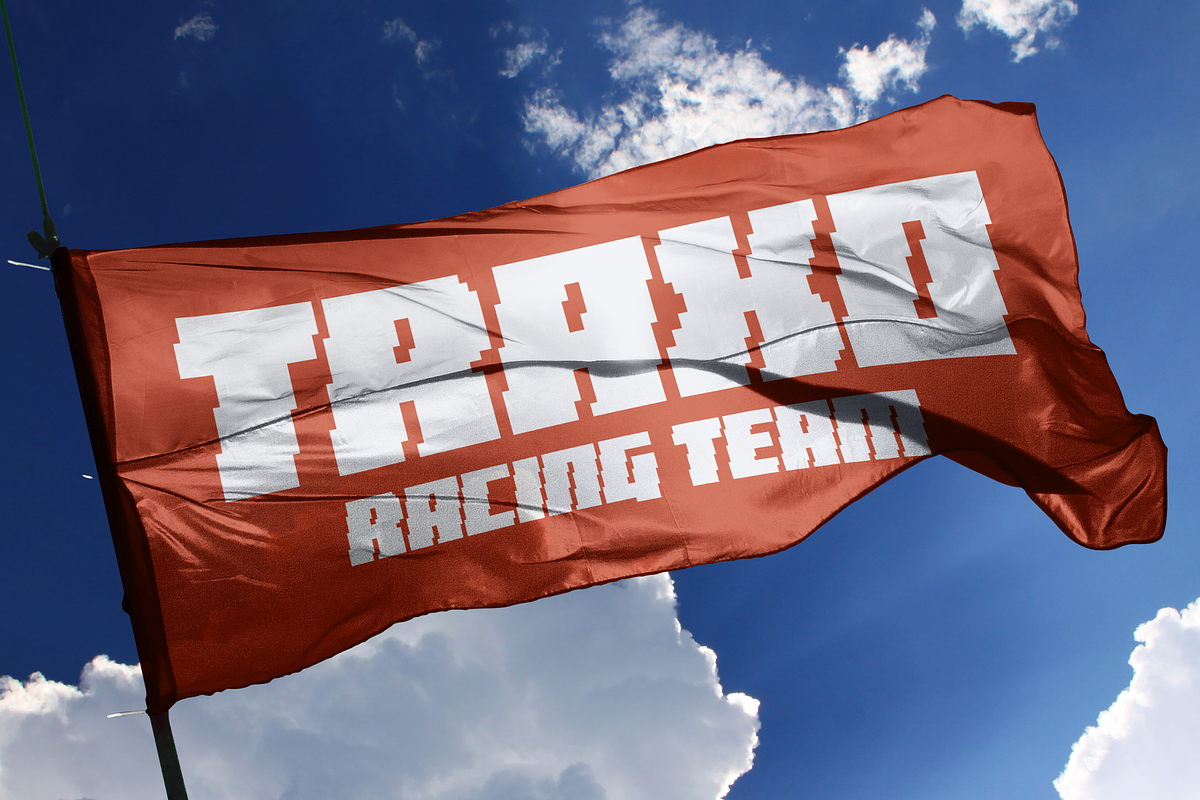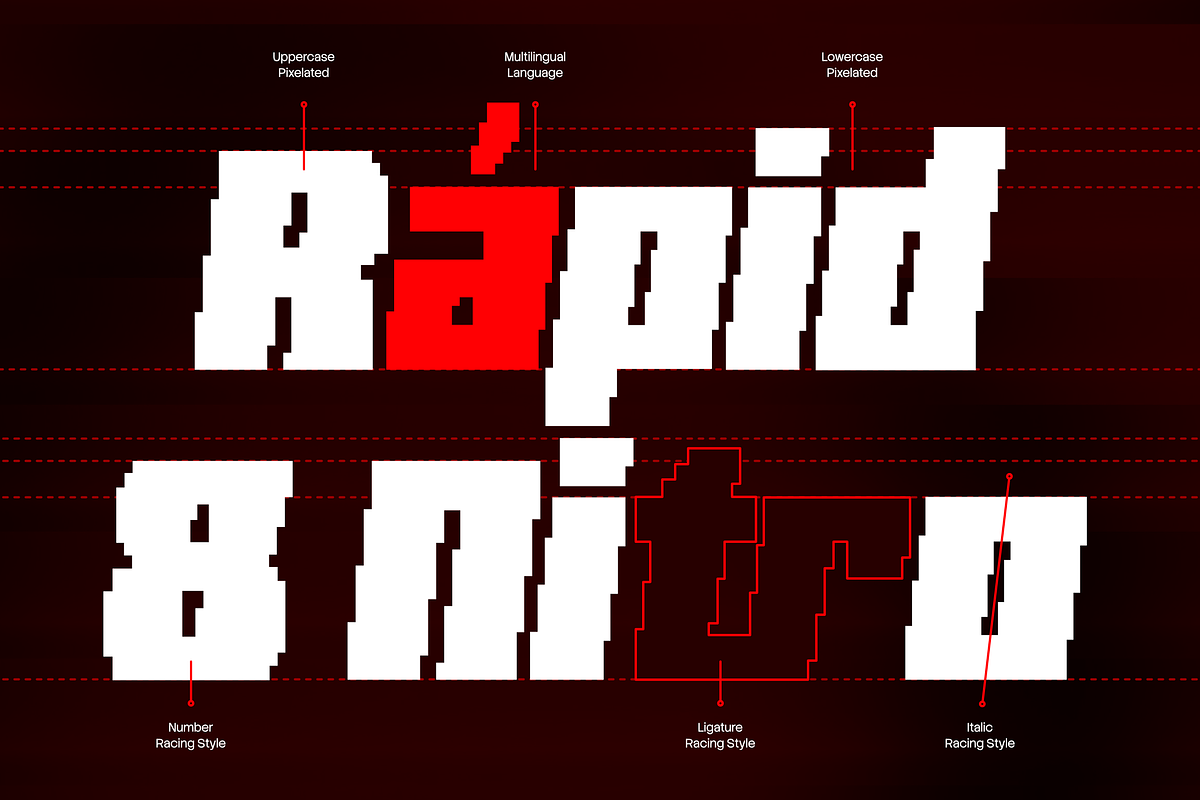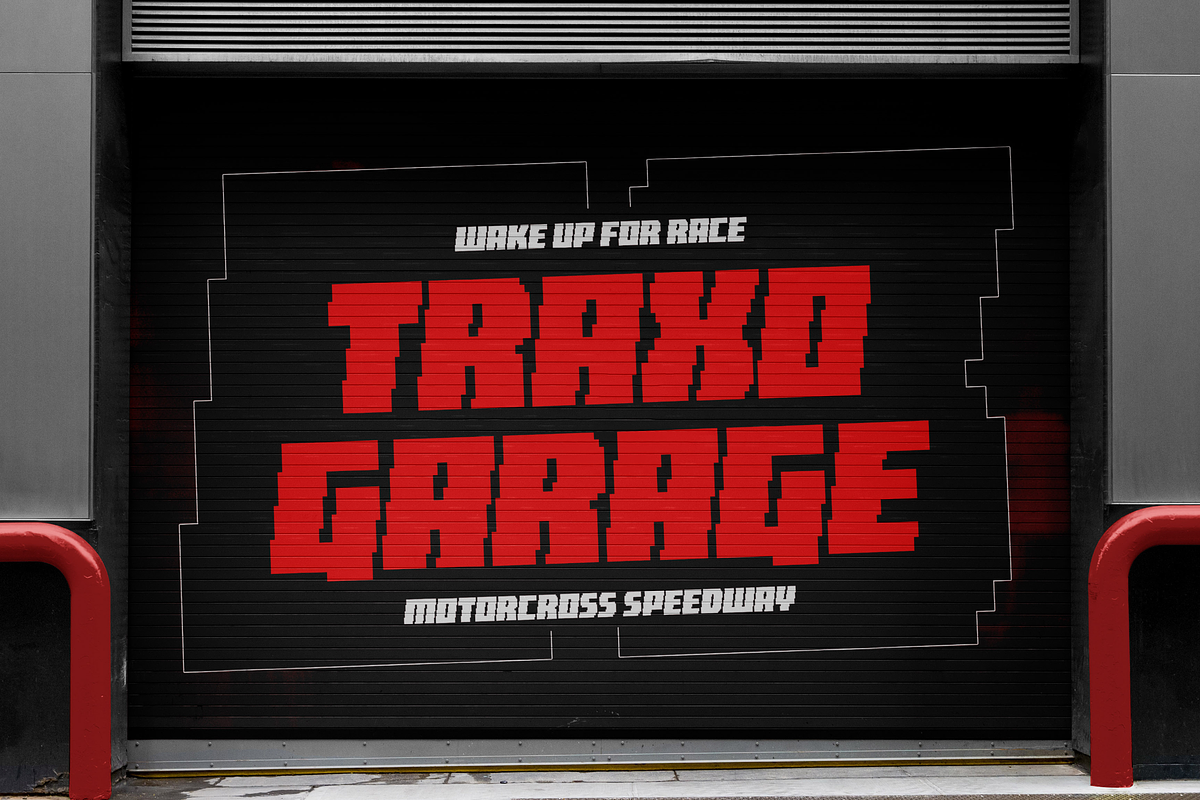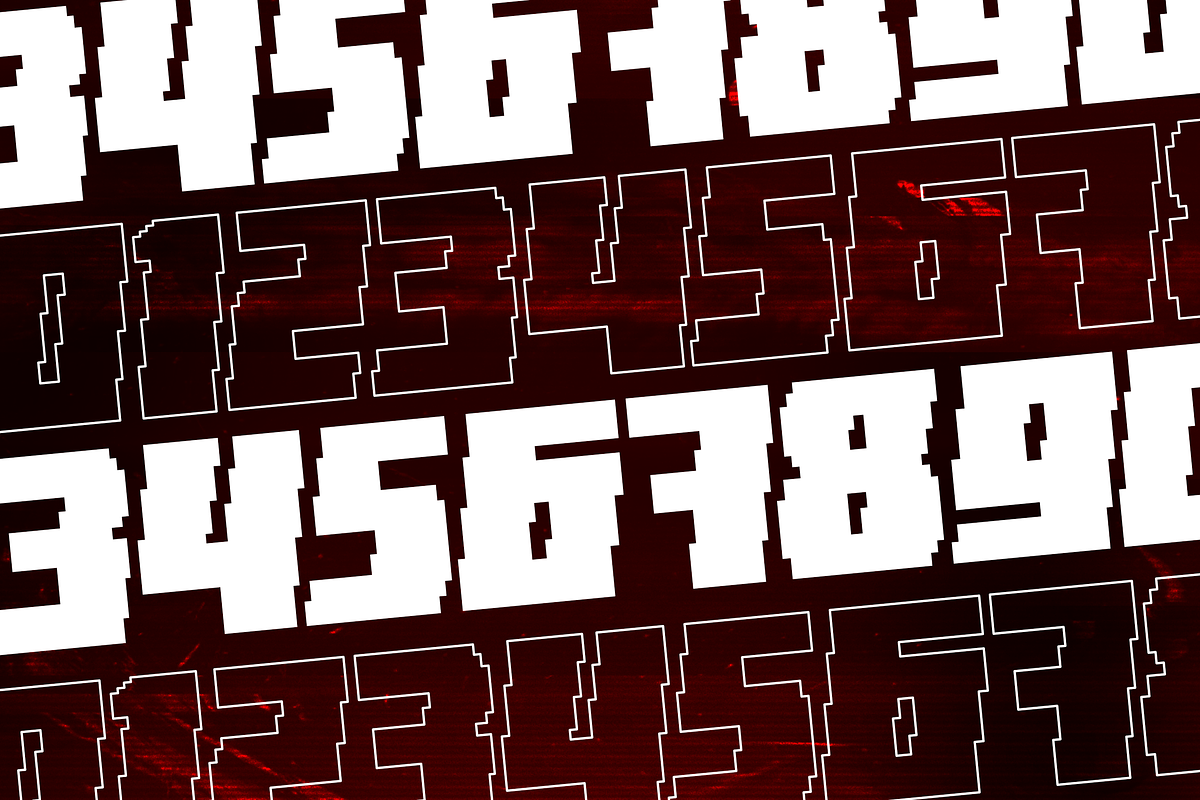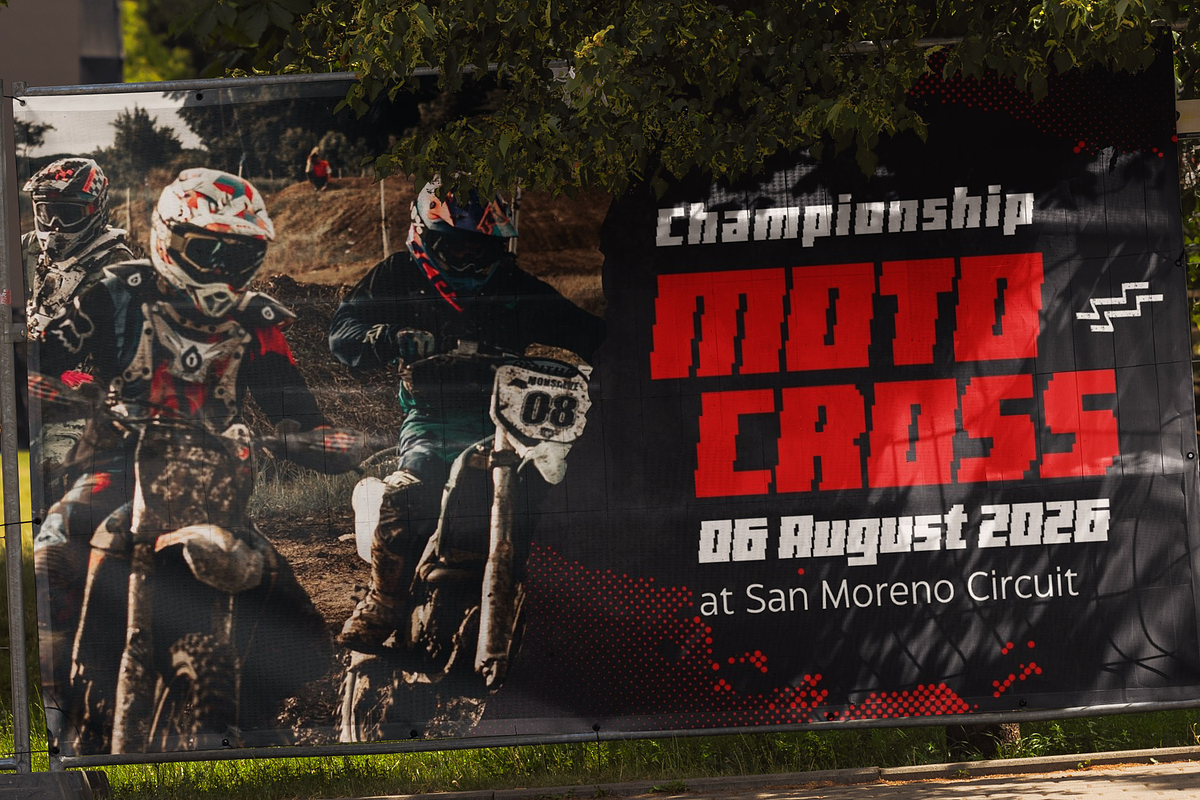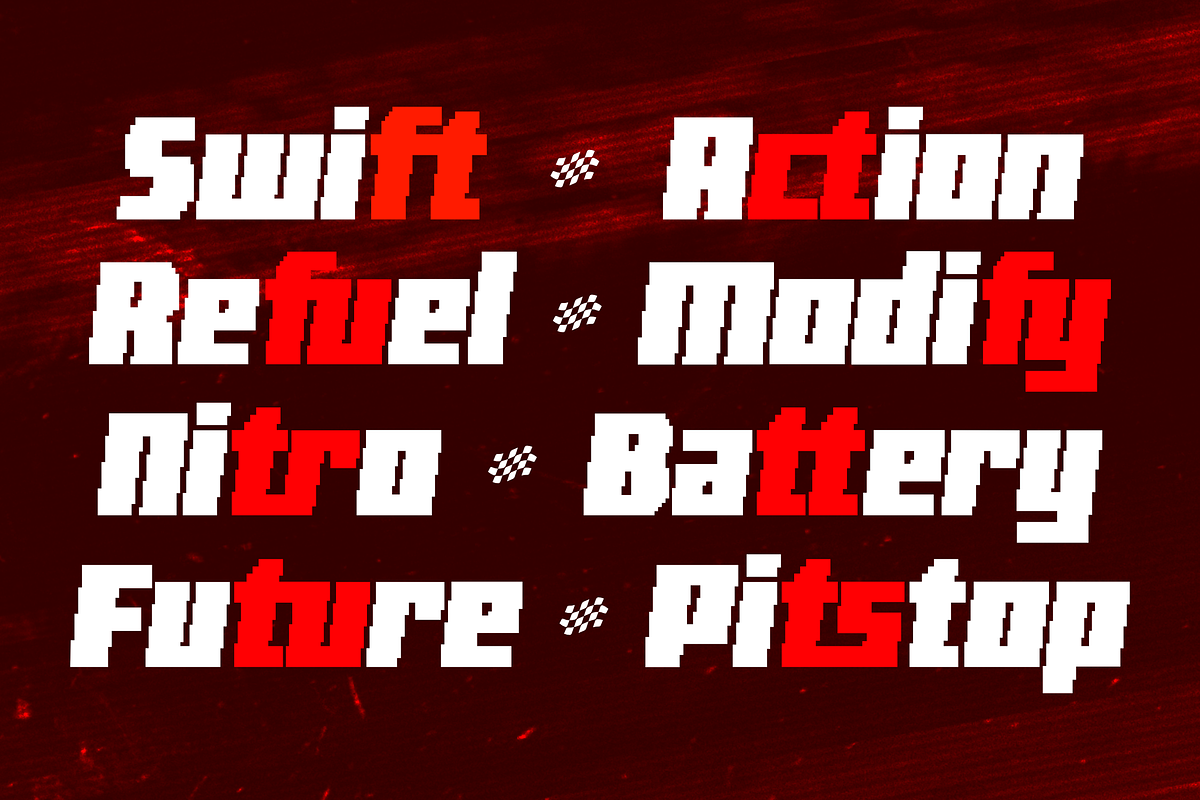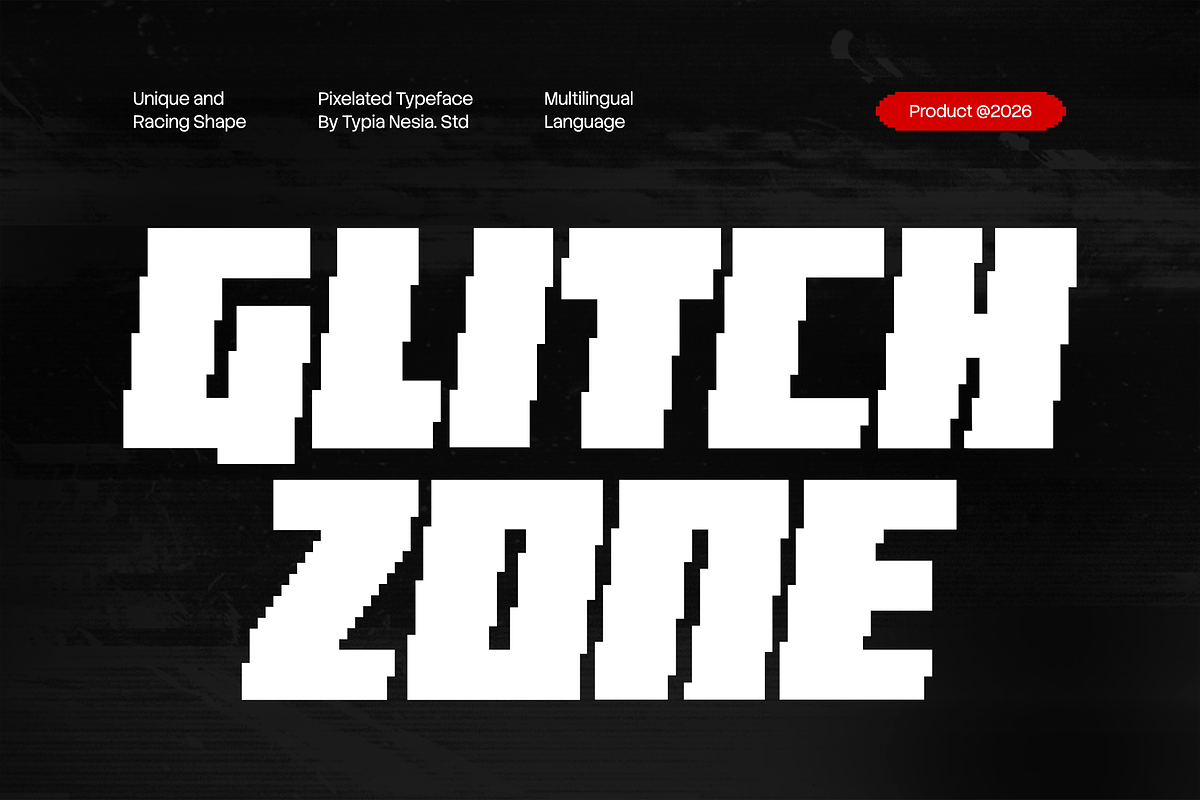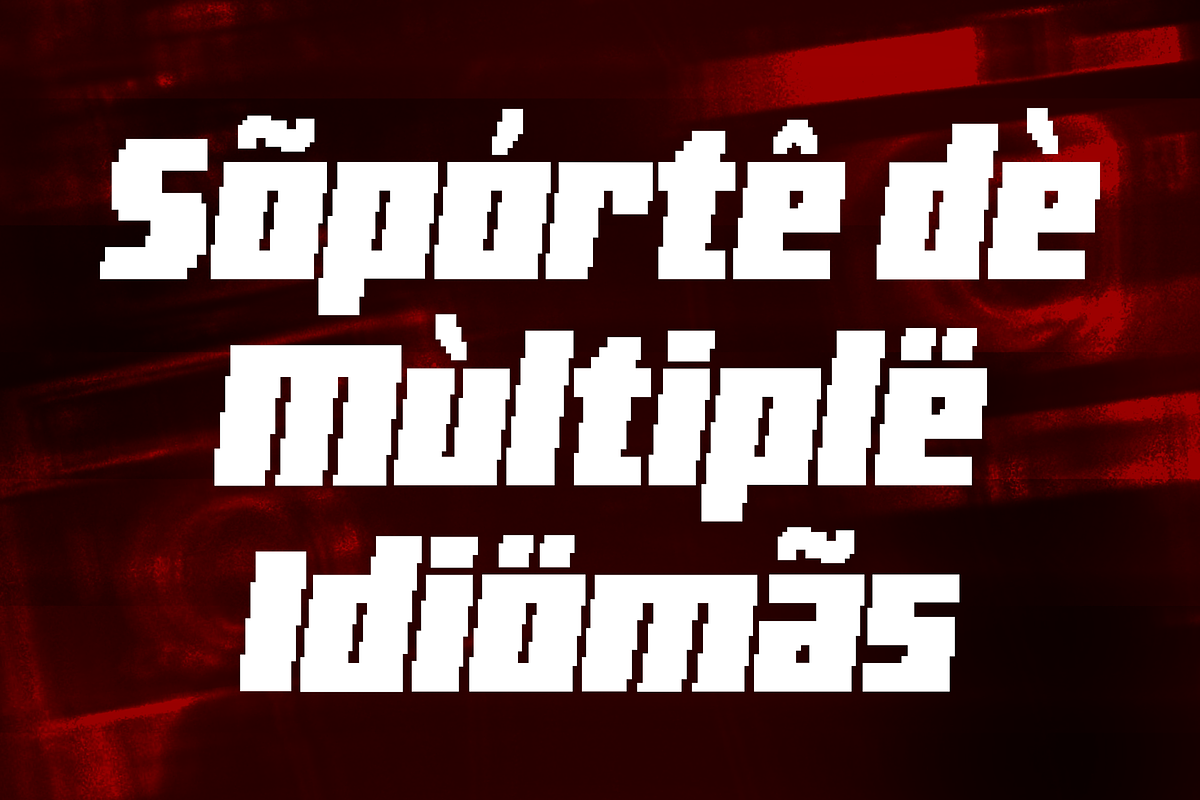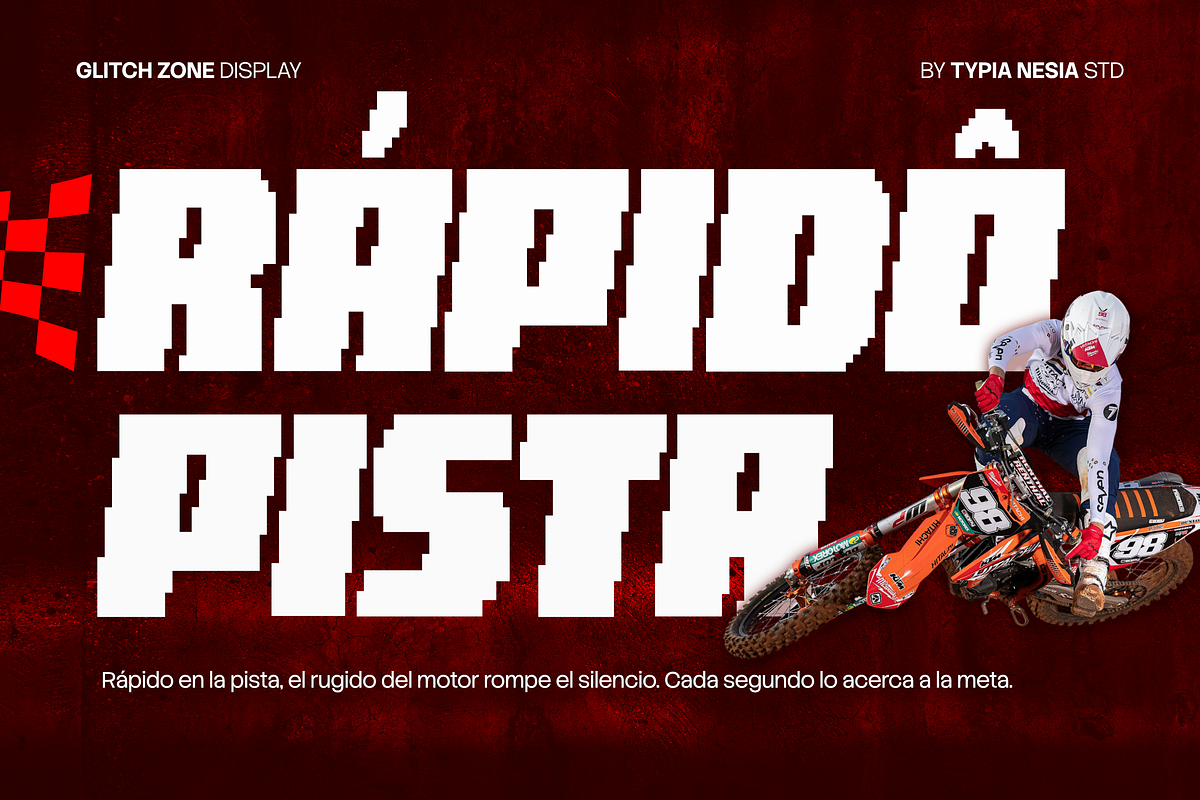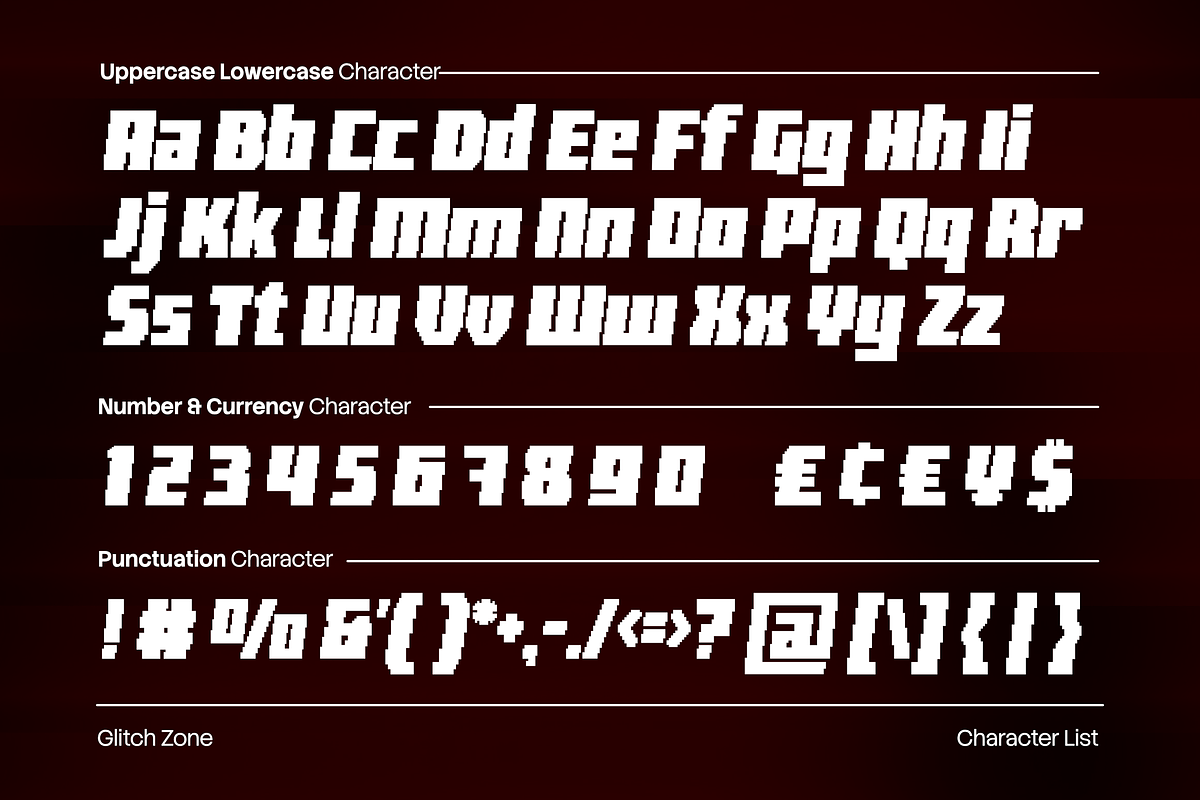
Glitch Zone – Modern Pixel Racing
Glitch Zone – Modern Pixel Racing Game Font - Bold Italic Geometric Display Font
Glitch Zone is a bold modern pixel racing game font designed to deliver high-speed energy with a futuristic digital edge. Built with pixelated geometric shapes and sharp structures, this sans serif typeface combines racing, sport, and gaming aesthetics with glitch-inspired details, creating a powerful sci-fi and cyber vibe. Its dynamic and structured form makes it perfect for game titles, esports branding, racing logos, posters, web headers, advertising, digital interfaces, and any project that demands speed, precision, and impact.